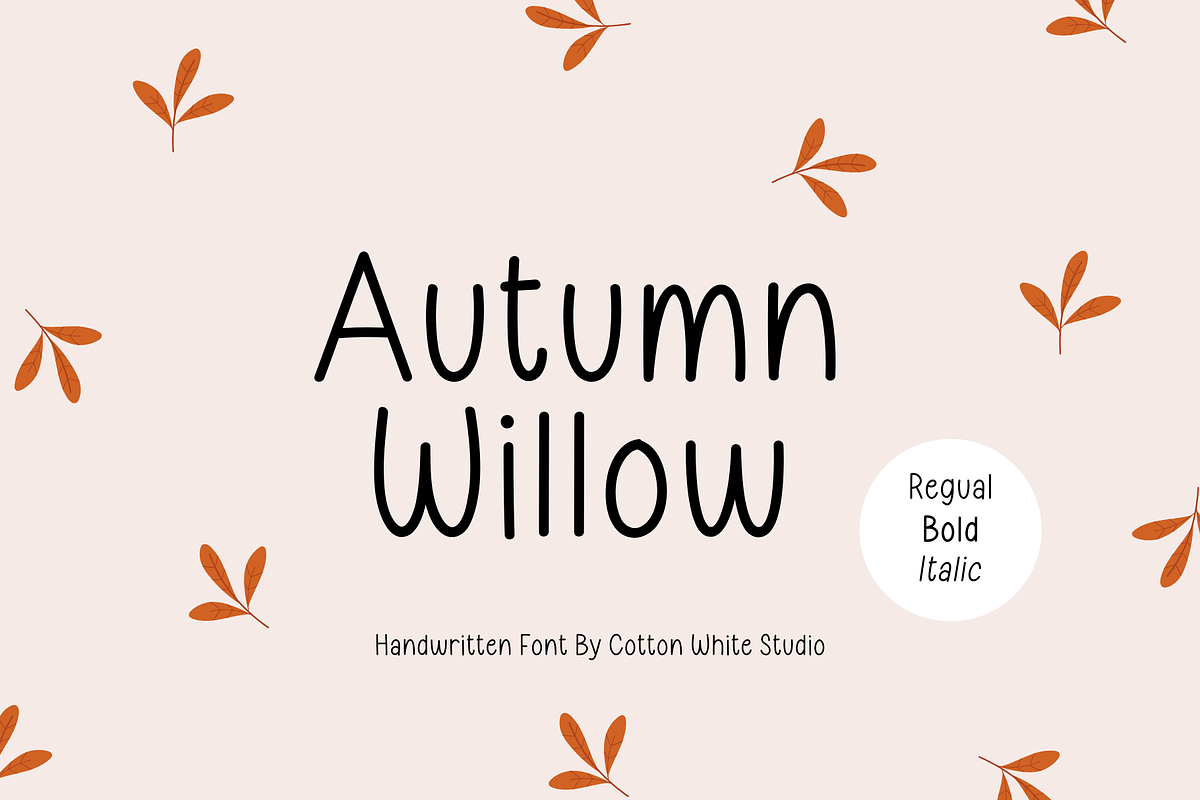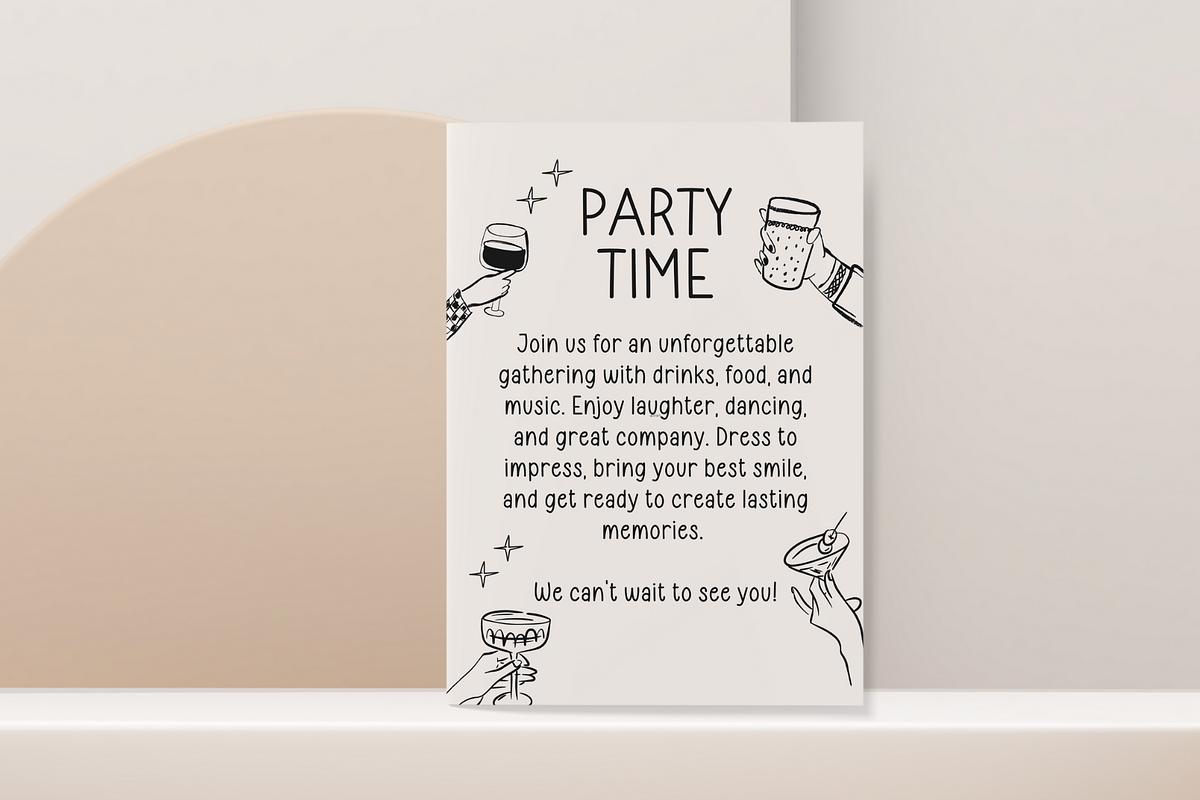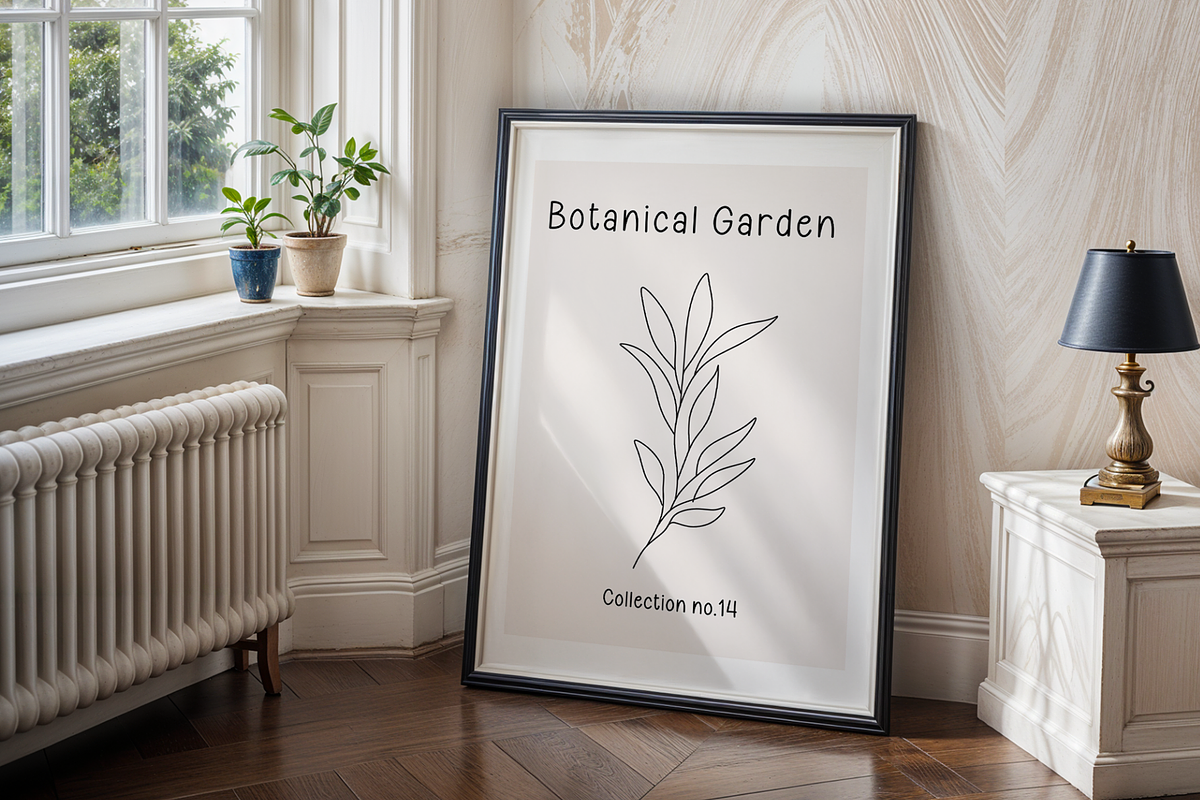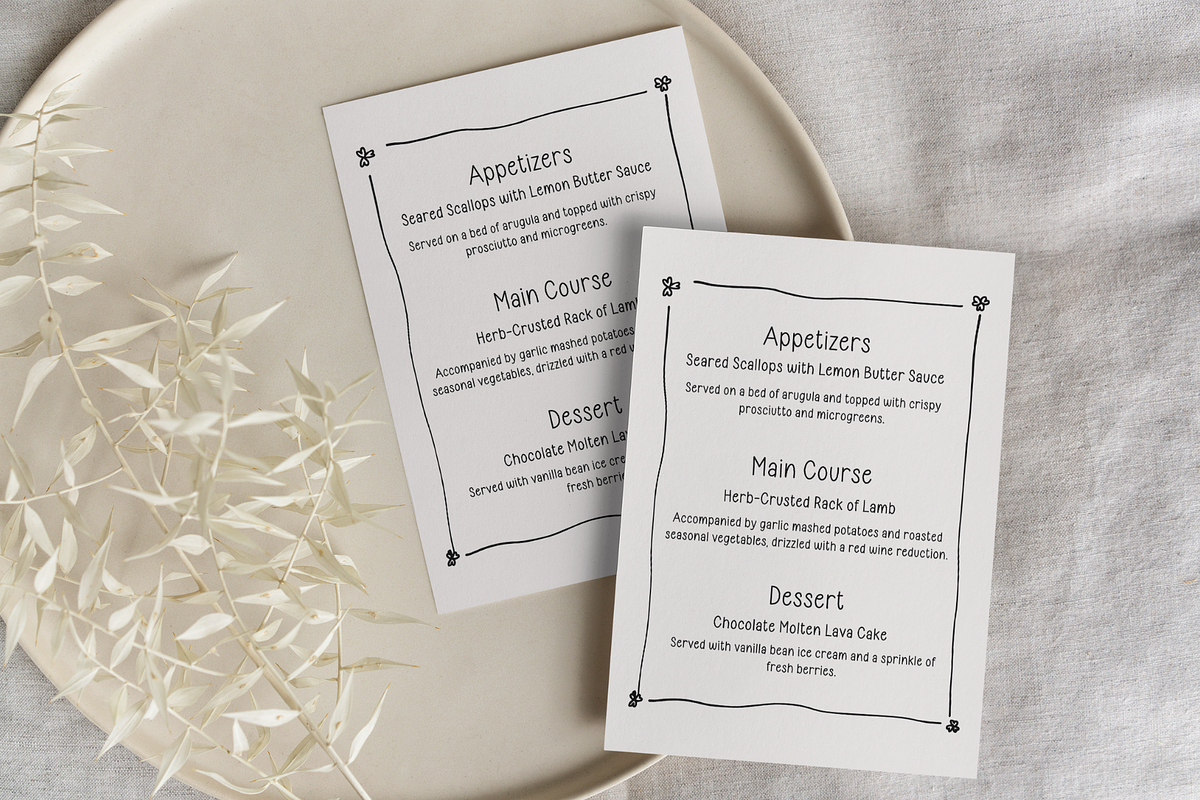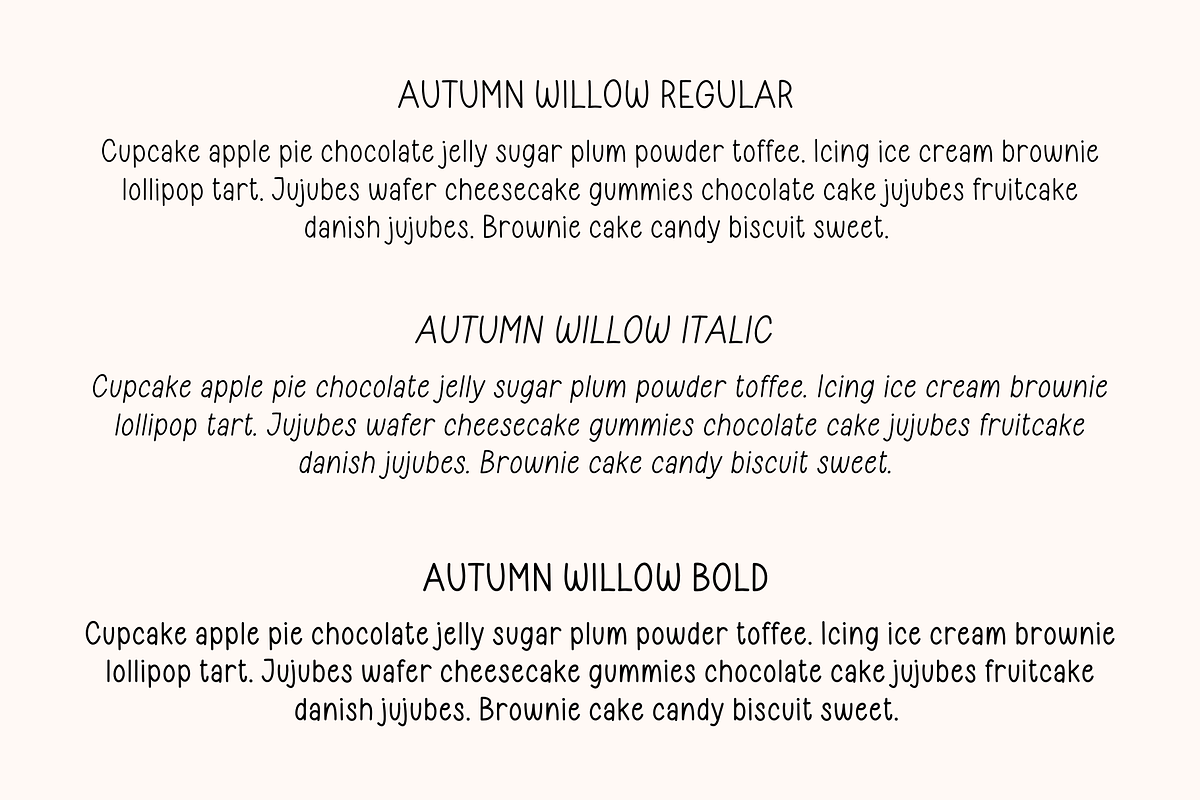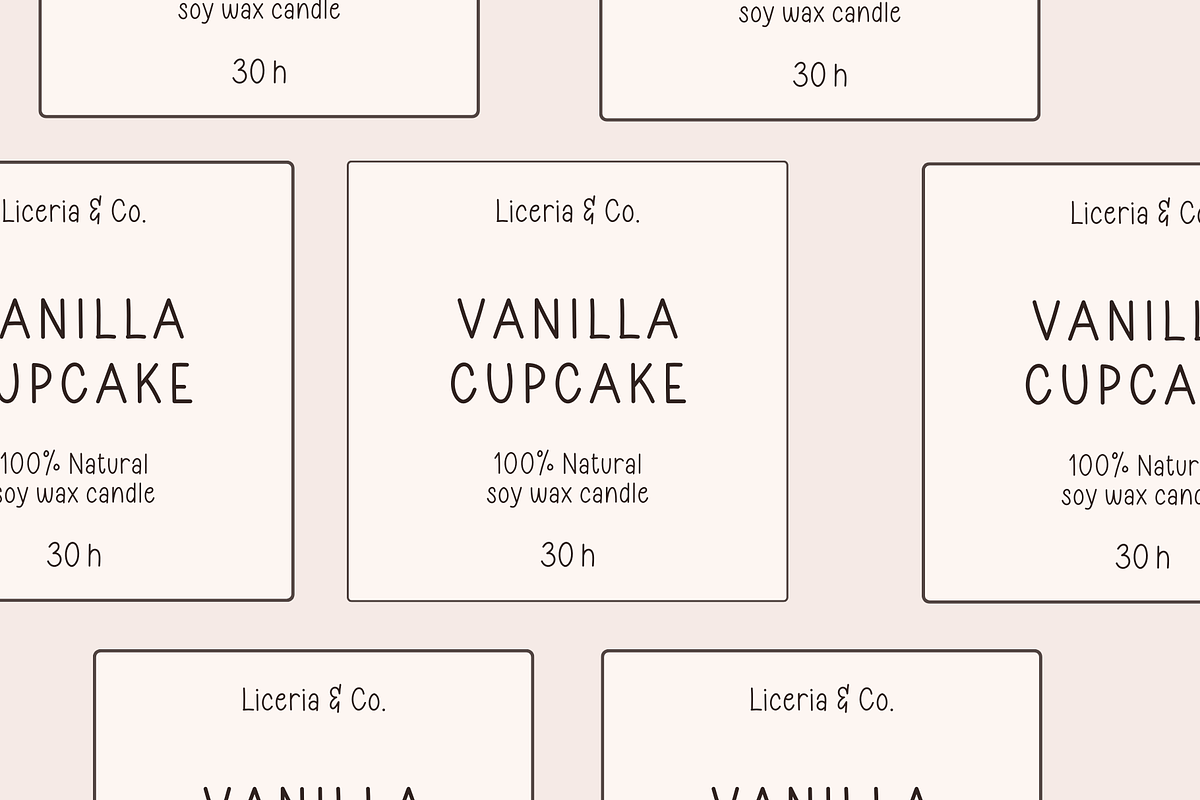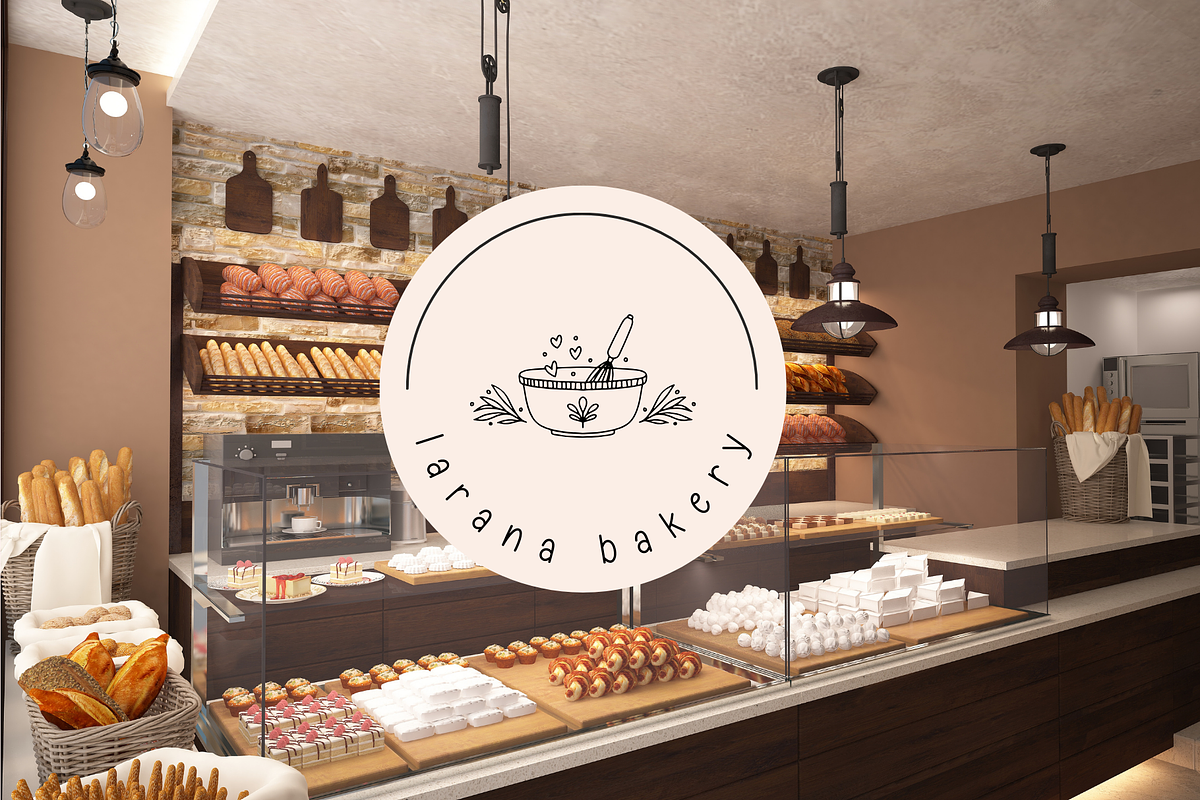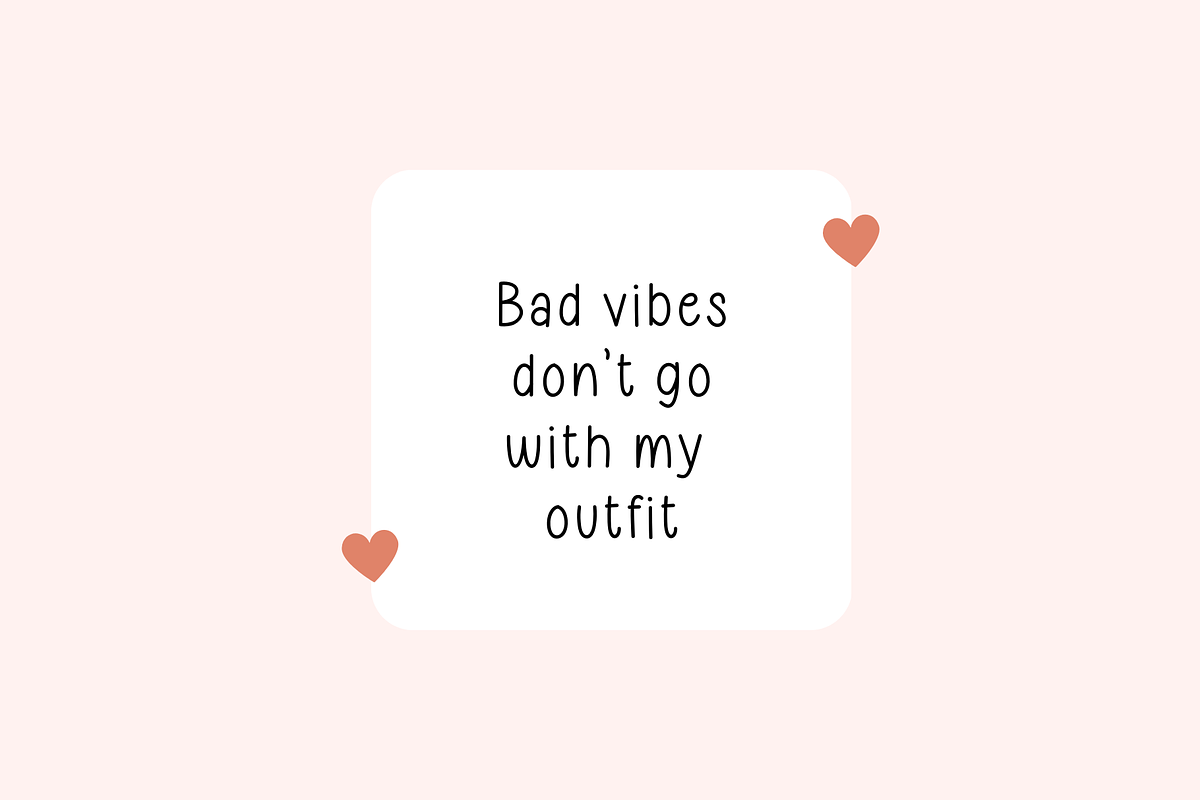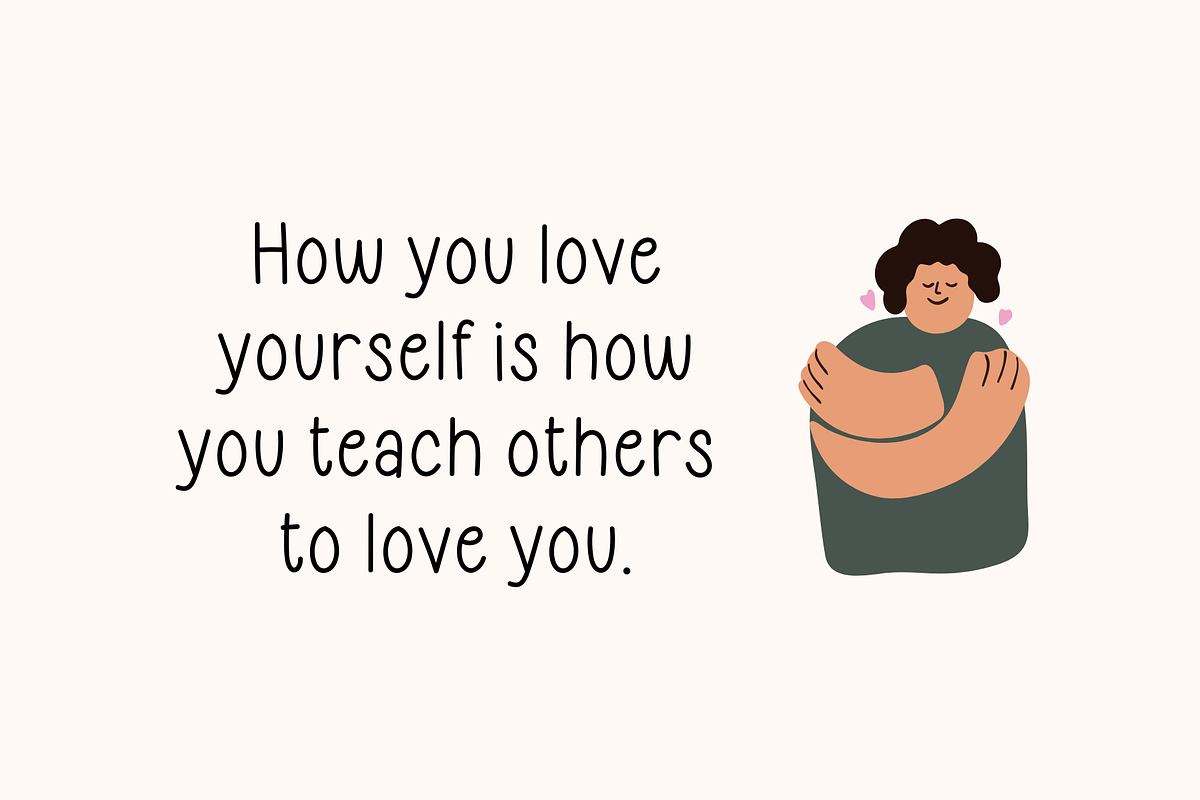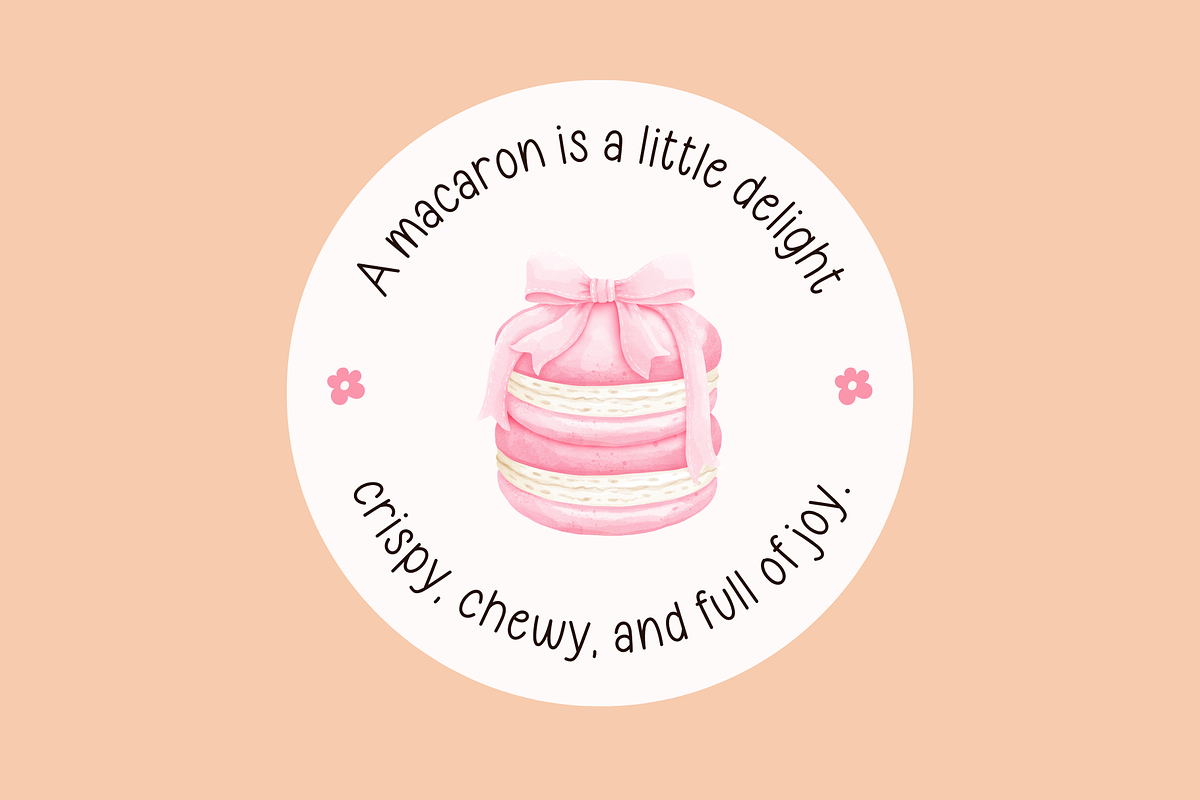
Autumn Willow
A cute little font, perfect to jazz up your digital planner, journal, invitations, note-taking, or anything that requires a handwriting look.